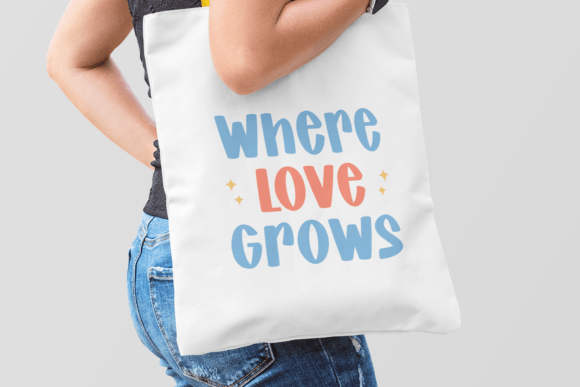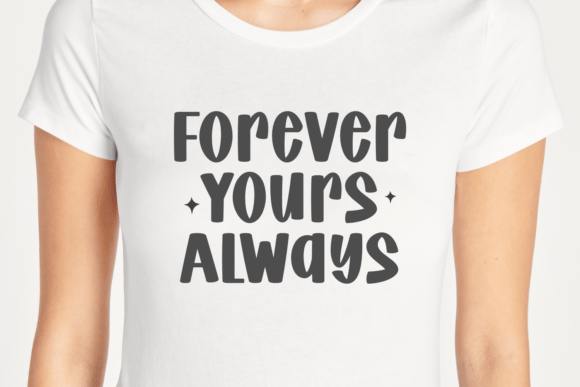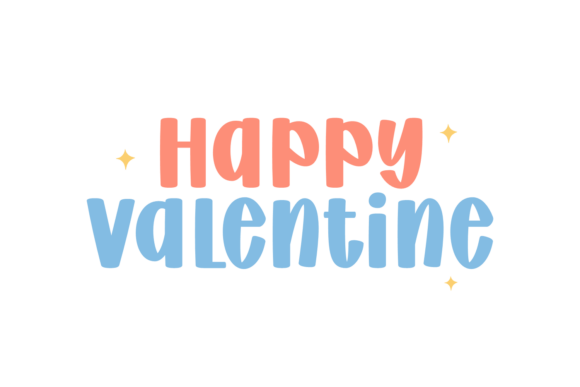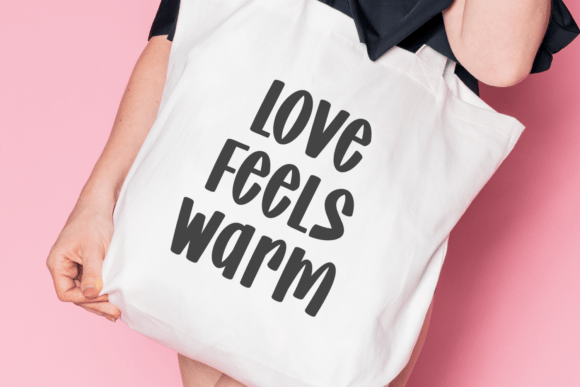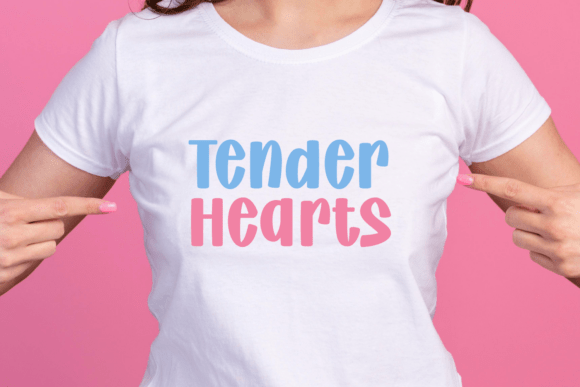
Introduction to Smarty Bubble Font
Inject a sense of joy into your designs with Smarty Bubble font, a playful display typeface characterized by its soft, rounded edges and bouncy rhythm.
This friendly Smarty Bubble typeface captures a handcrafted, youthful energy that is ideal for childrenโs books, toy packaging, and vibrant social media graphics The organic shapes of the Smarty Bubble font evoke a sense of approachability and warmth, making it perfect for โfriendlyโ branding or casual food and beverage labels.
Key Features of Smarty Bubble Font
Why Choose Smarty Bubble Font?